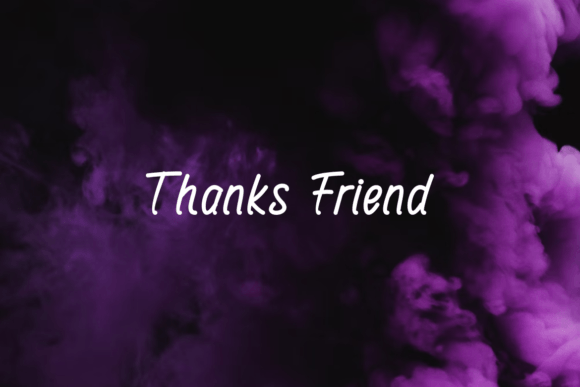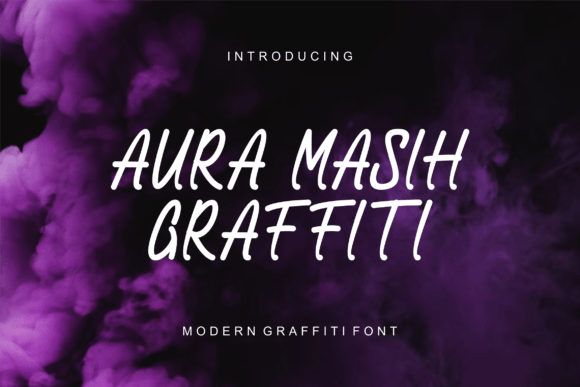
The Designer’s Delight: Aura Masih Graffiti Font
I’ll never forget the time I was working on a project for a client who wanted a bold, eye-catching font to make their brand stand out. I scoured the internet, tried countless fonts, but nothing seemed quite right. That was until I stumbled upon Aura Masih Graffiti. It was love at first sight! 💕 This exquisite handwritten font has been a game-changer for my design projects, and I’m excited to share its beauty with you.
Aura Masih Graffiti is a true gem, and here’s what I love about it:
- ✨ Classy calligraphic influences that add a touch of sophistication to any project
- ✅ Contemporary and fresh feel that’s perfect for modern designs
- 💫 Highly legible, even at smaller font sizes
- 🎨 Versatile and works well for a variety of design projects, from branding to packaging
- 🤔 Some users may find the font a bit too ornate for very casual or playful projects
- ⚠️ Limited availability of certain characters, such as ligatures or special glyphs
Aura Masih Graffiti was designed with the goal of creating a font that would blend traditional calligraphy with modern sensibilities. The designer, Aura Masih, drew inspiration from various sources, including:
- Classical calligraphy
- Street art and graffiti
- Modern typography
The result is a font that’s both elegant and edgy, perfect for designers looking to add a touch of sophistication to their projects.
| Font Name | Aura Masih Graffiti Font |
| What type of projects is Aura Masih Graffiti suitable for? | Aura Masih Graffiti is versatile and can be used for a variety of projects, including branding, packaging, digital designs, and more. |
| Is Aura Masih Graffiti easy to read? | Yes, Aura Masih Graffiti is highly legible, even at smaller font sizes. |
| Does Aura Masih Graffiti support OpenType features? | Yes, Aura Masih Graffiti supports OpenType features, including stylistic alternates, glyphs, and ligatures. |